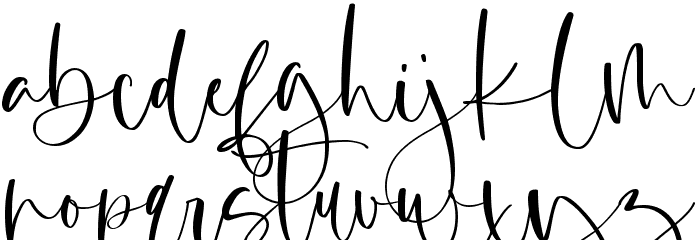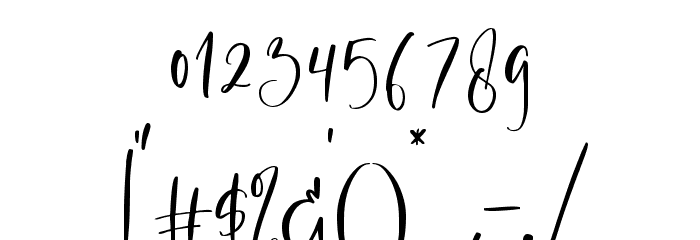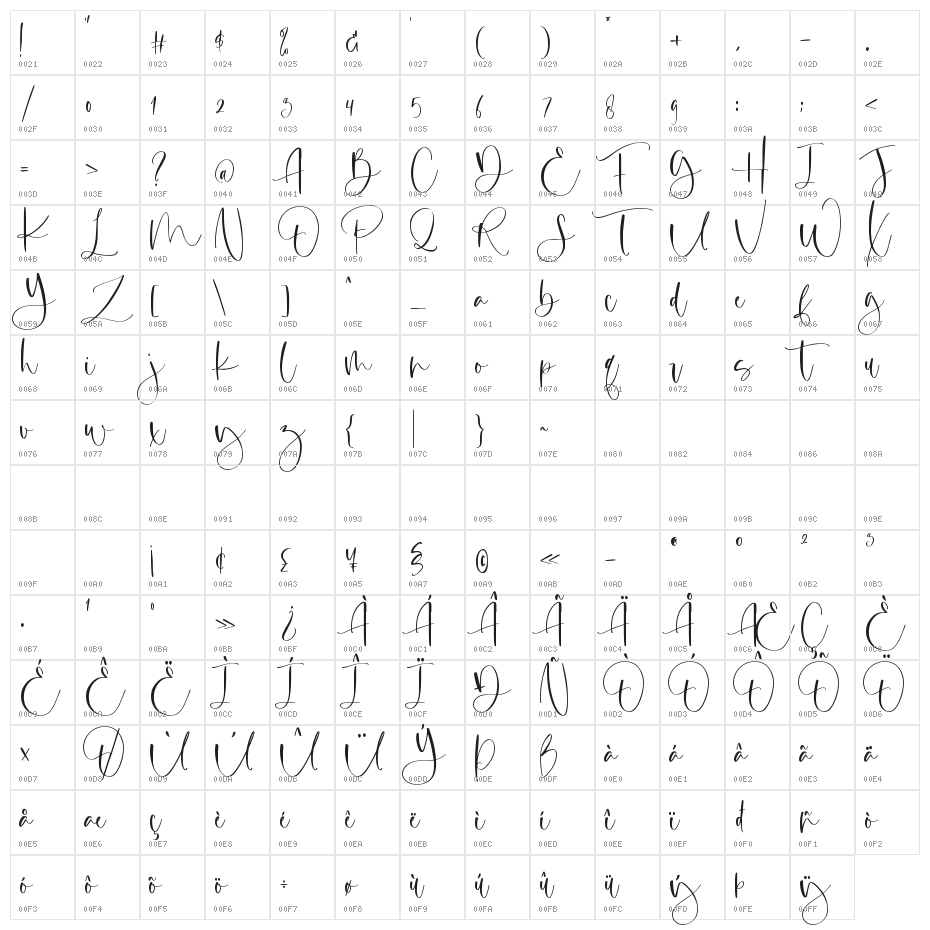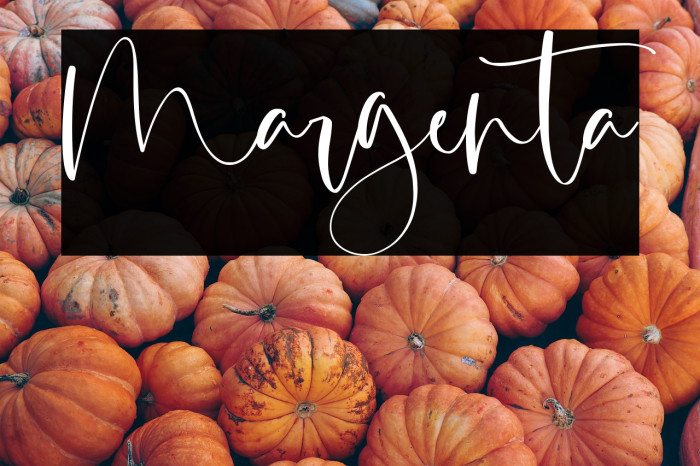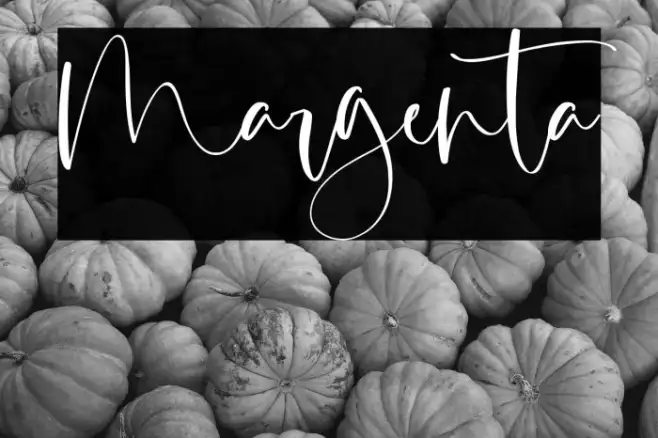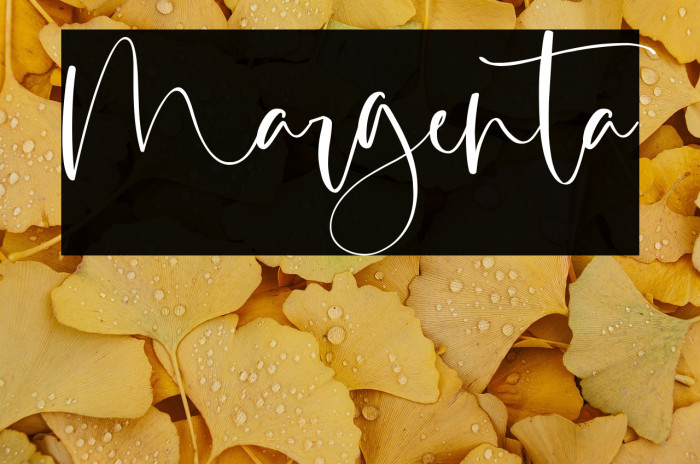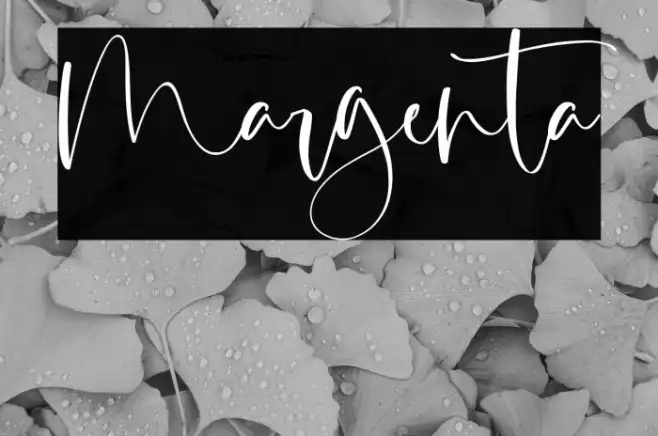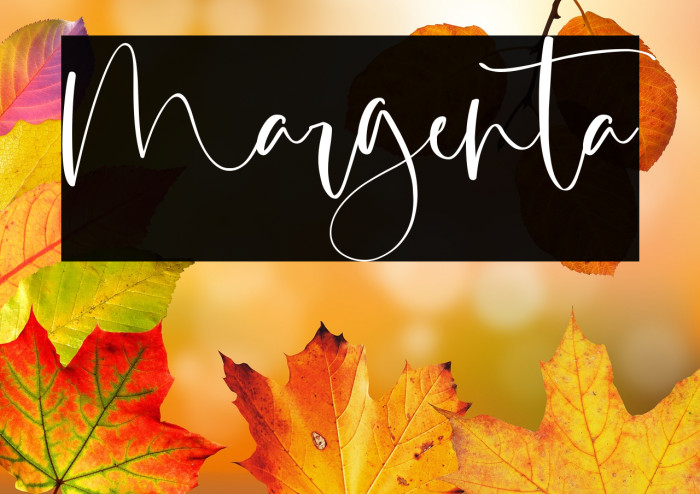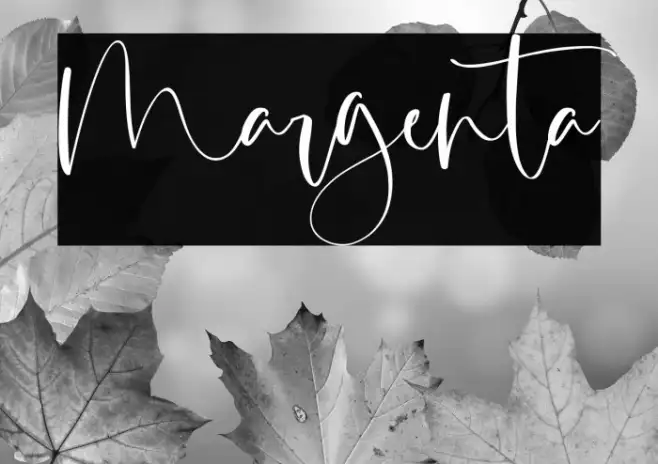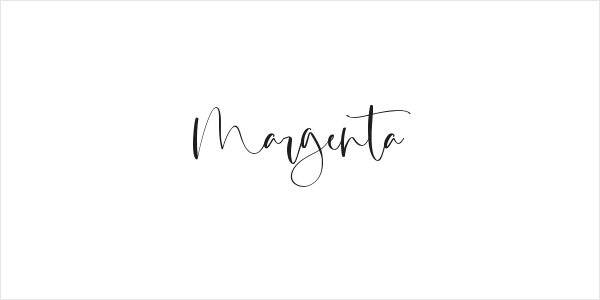
Margenta Font
This font features an elegant and flowing script style, characterized by its intricate and looping letterforms. The uppercase letters exhibit a sophisticated flair with extended strokes and delicate curves, while the lowercase letters maintain a consistent fluidity, enhancing the overall graceful appearance. The numerals and special characters are designed with the same attention to detail, ensuring a cohesive look across all glyphs. This font's artistic nature makes it ideal for creative projects that require a touch of elegance and personality.
An elegant and flowing script font with intricate, looping letterforms.
- Proposed Projects: Ideal for wedding invitations, greeting cards, branding, and decorative projects.
- Use Case: Logos, Invitations, Decorative text